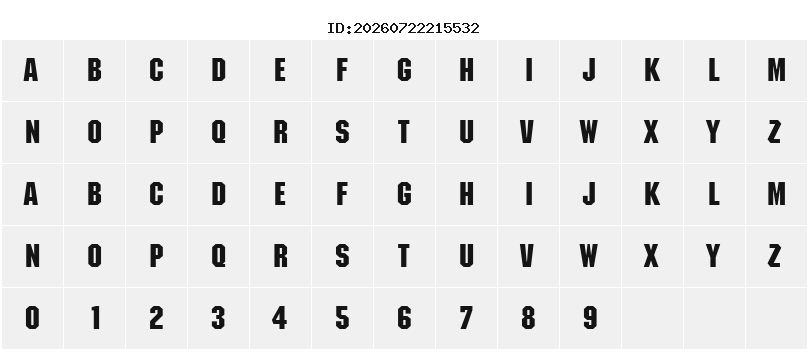
• Font Name: Motor
• Full Font Name: Motor
About Motor.ttf
Motor.ttf is a modern, elegant sans-serif font designed for ultimate readability and visual harmony. Perfect for branding, headlines, web design, and print materials.